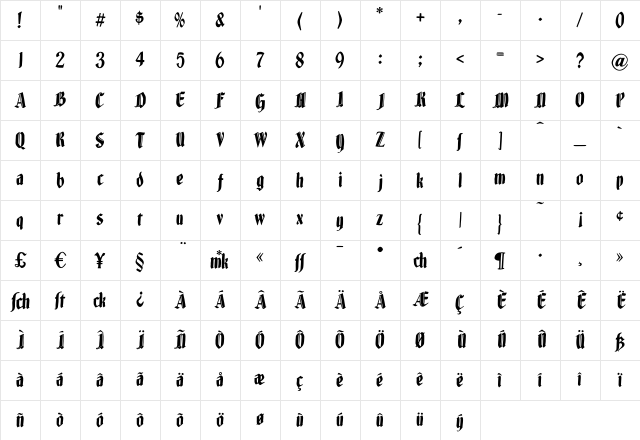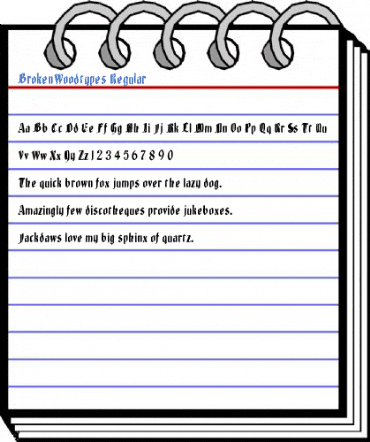
BrokenWoodtypes echoes the hand-painted signage and woodblock typography of the American frontier, with a warm, rugged personality.
Font Pairing: Combine BrokenWoodtypes with a simple slab or neutral sans - period-accurate companions reinforce the vintage feel without competing for attention.
Pro Tip: Use BrokenWoodtypes for short, impactful bursts of text - it shines in poster headlines and product names rather than extended copy.